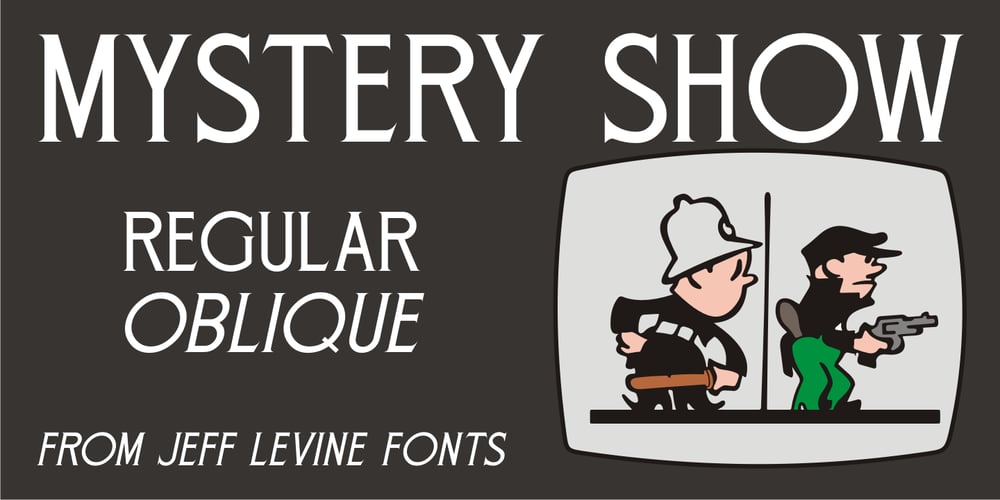
Mystery Show JNL Font Family was designed by Jeff Levine and published by Jeff Levine. Mystery Show JNL contains 2 styles and family package options. Mystery Show JNL was modeled after the hand lettered titles found on various early episodes of the 1950s TV suspense program “Alfred Hitchcock Presents”. The design emulates characteristics found in Frederic W. Goudy’s Copperplate Gothic [a sans serif of equal stroke weights with tiny spurs added], but is considered a serif font by the addition of the spurs. Mystery Show JNL is available in both regular and oblique versions.